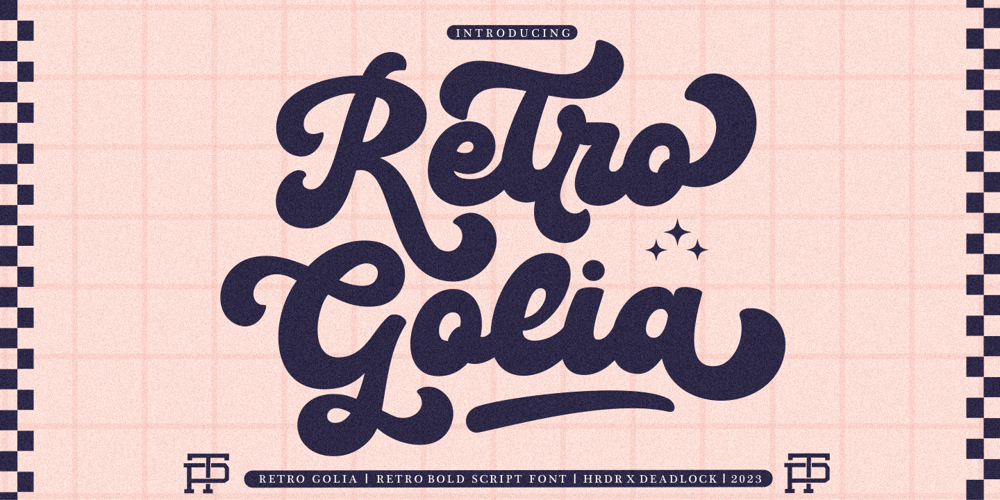
Retro Golia Font Family was designed by Dede Mulyadi and published by HRDR. Retro Golia contains 1 styles and family package options. Retro Golia Font is a Retro Script Font with a Bold style, inspired by the retro typography designs.Retro Golia It’s perfect for branding, wedding invitations, photography, bloggers, logos, Lettering , greeting cards, Logo, Quotes,Poster and more.